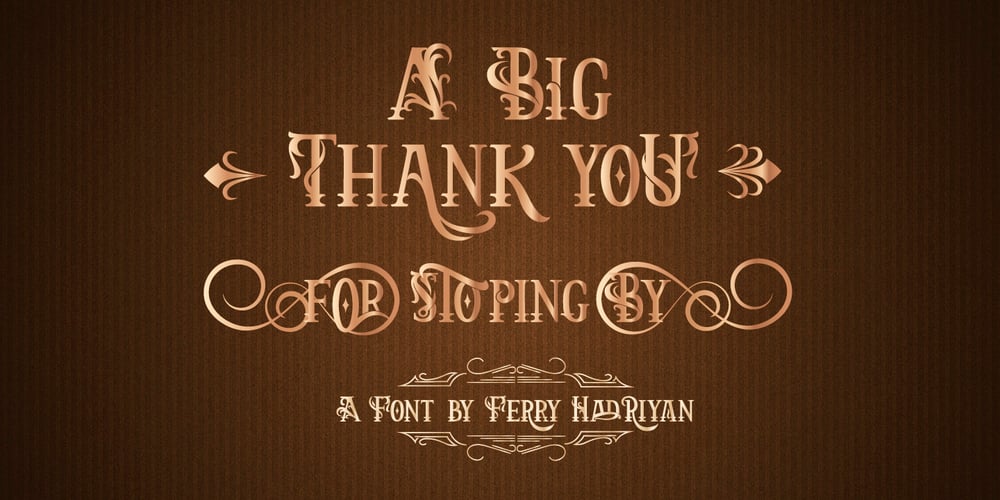
Arthouse Display Pro Font Family was designed by Ferry Hadriyan and published by FHFont. Arthouse Display Pro contains 3 styles and family package options. Arthouse is a display font with a vintage style. It includes OpenType features such as standard ligatures, discretionary ligatures, stylistic sets, decorative elements, and is suitable for various designs, and weddings, events, t-shirts, logos, badges, stickers, and awesome work.